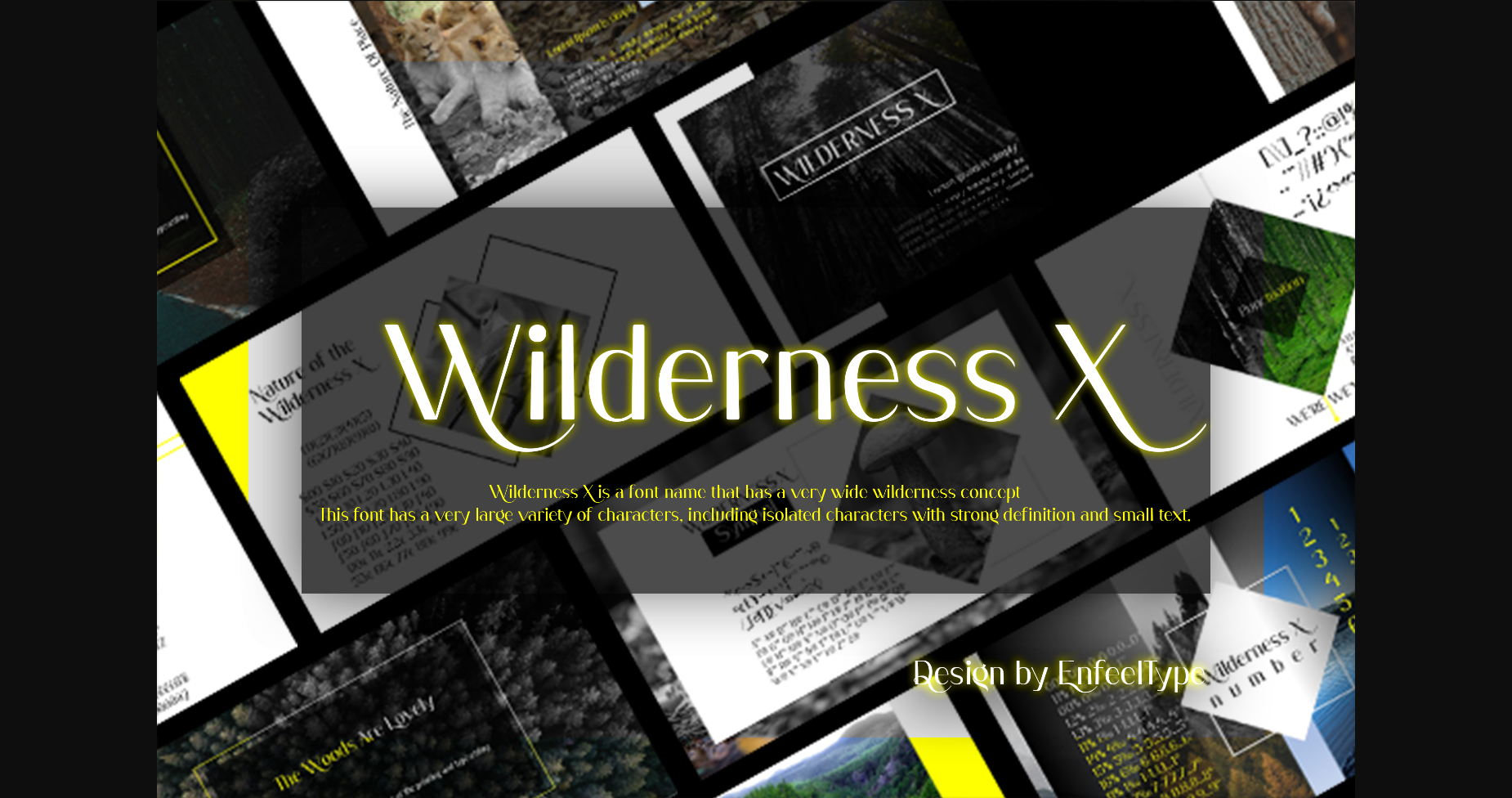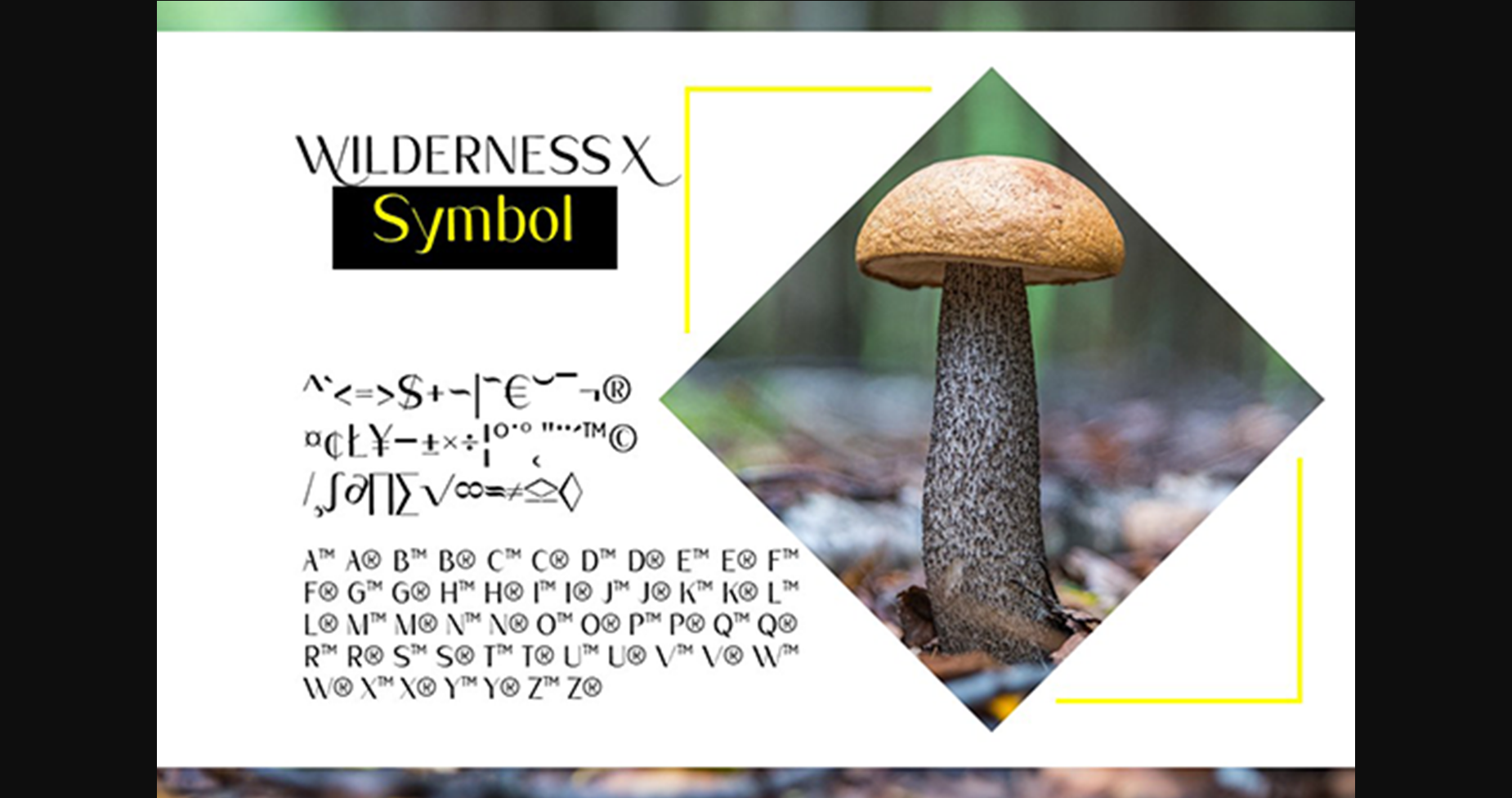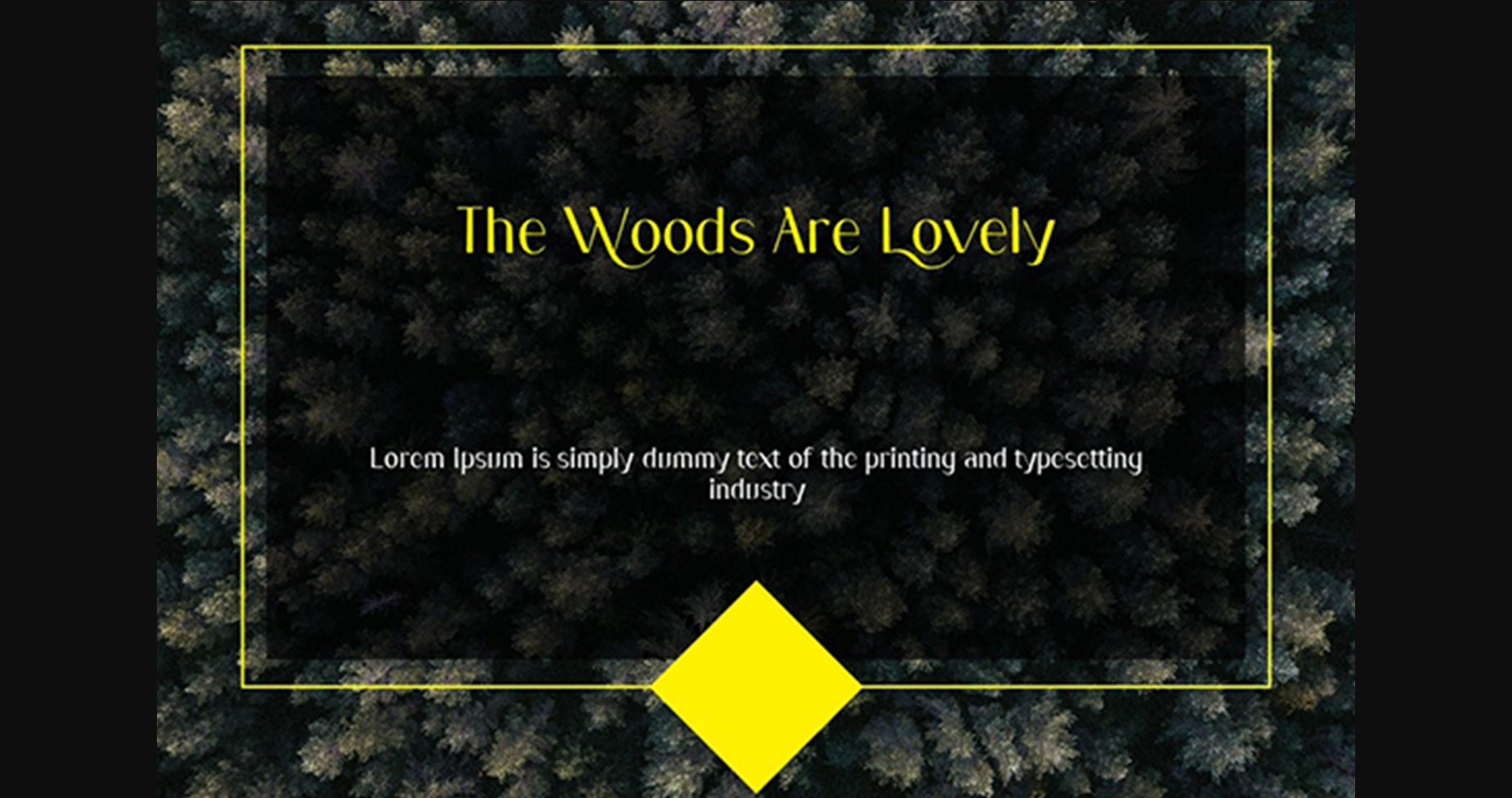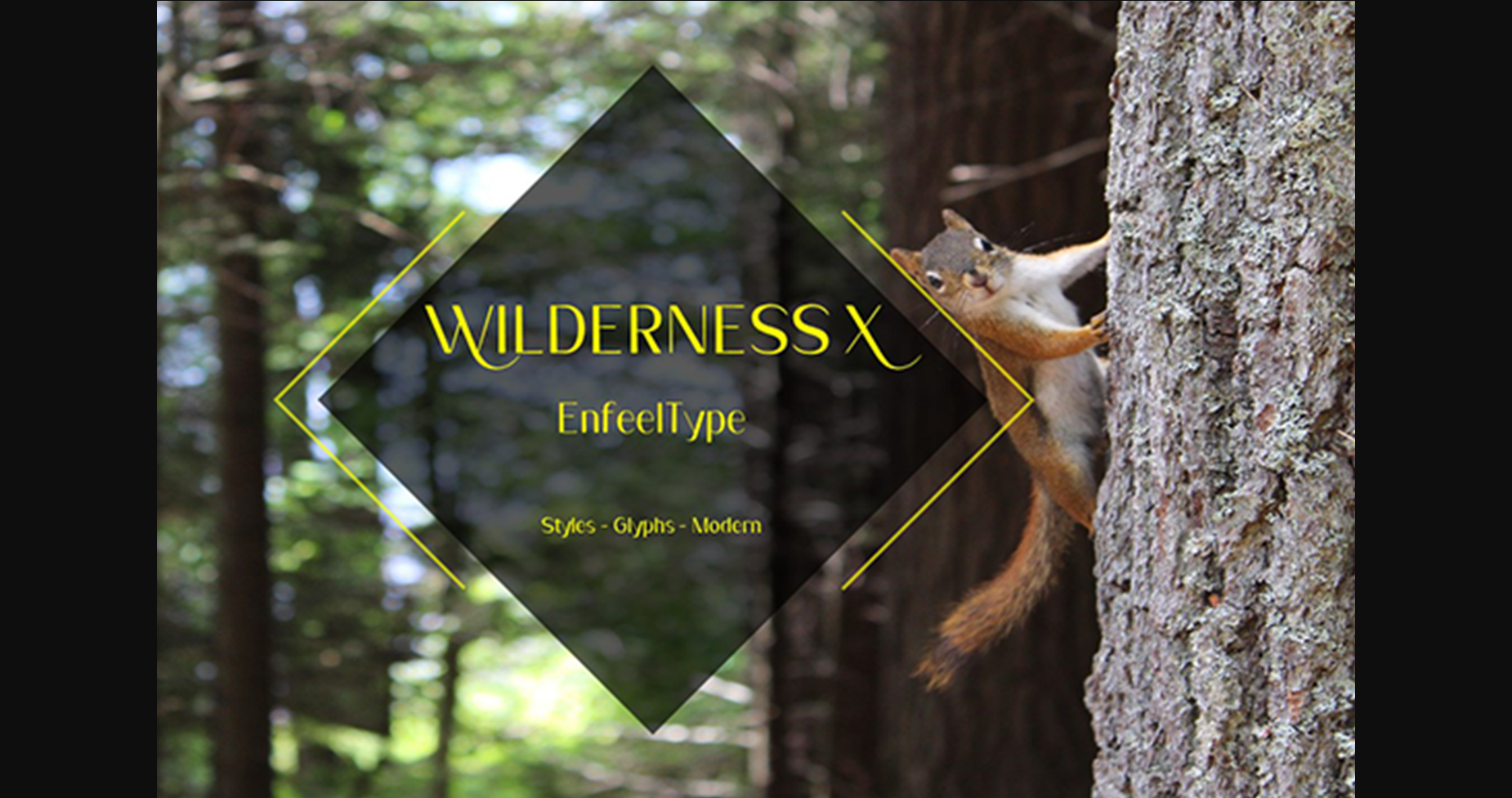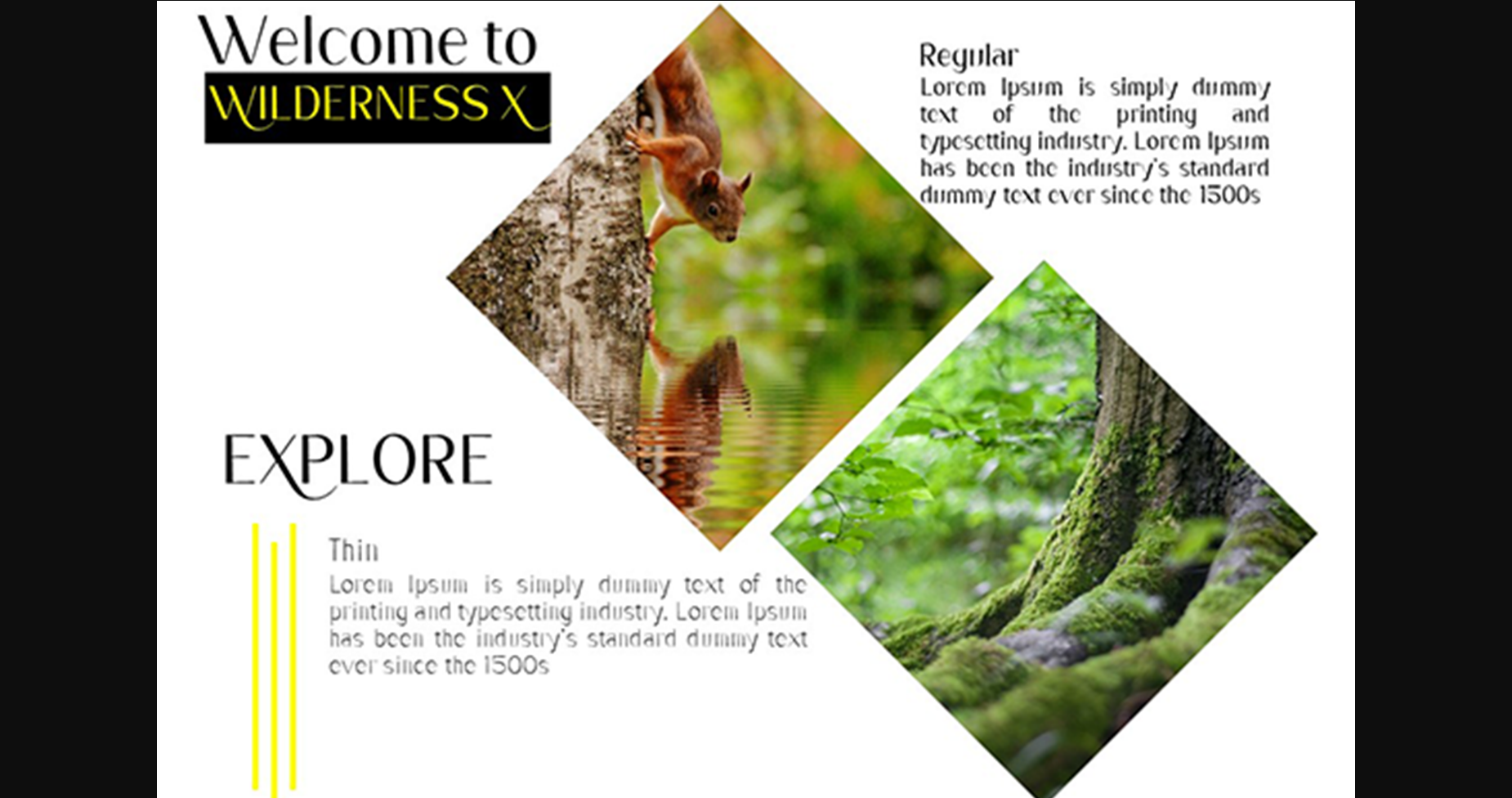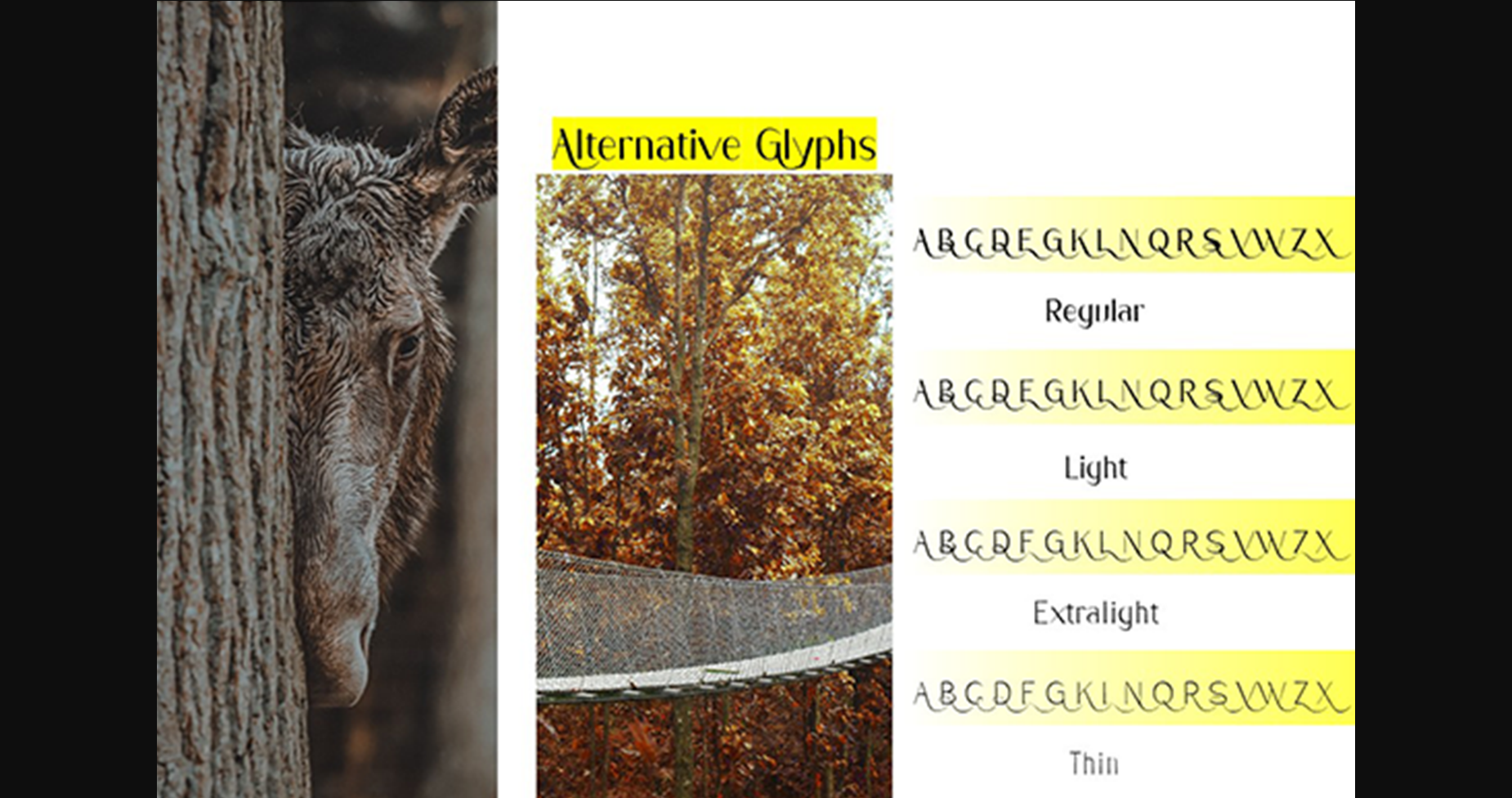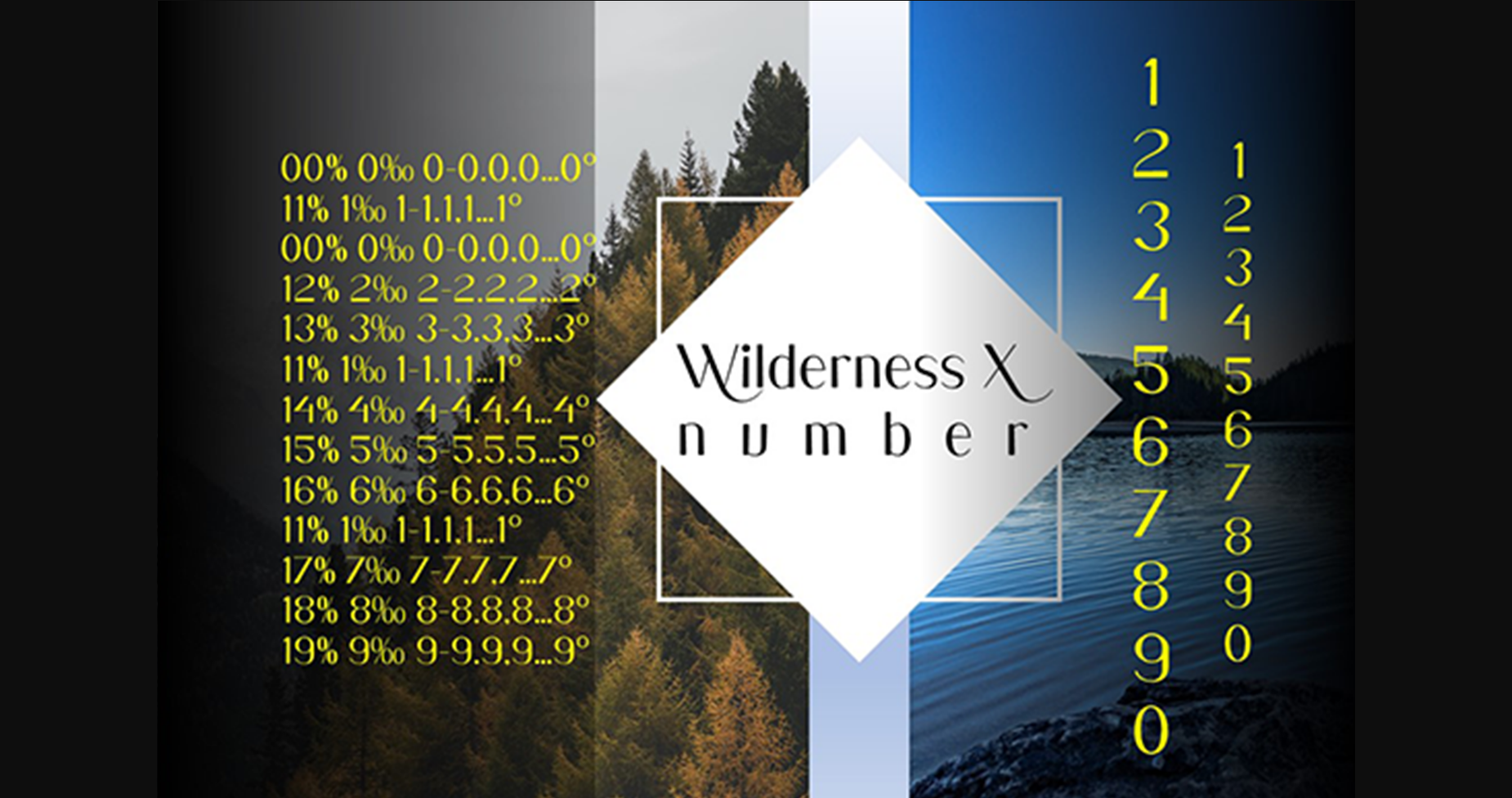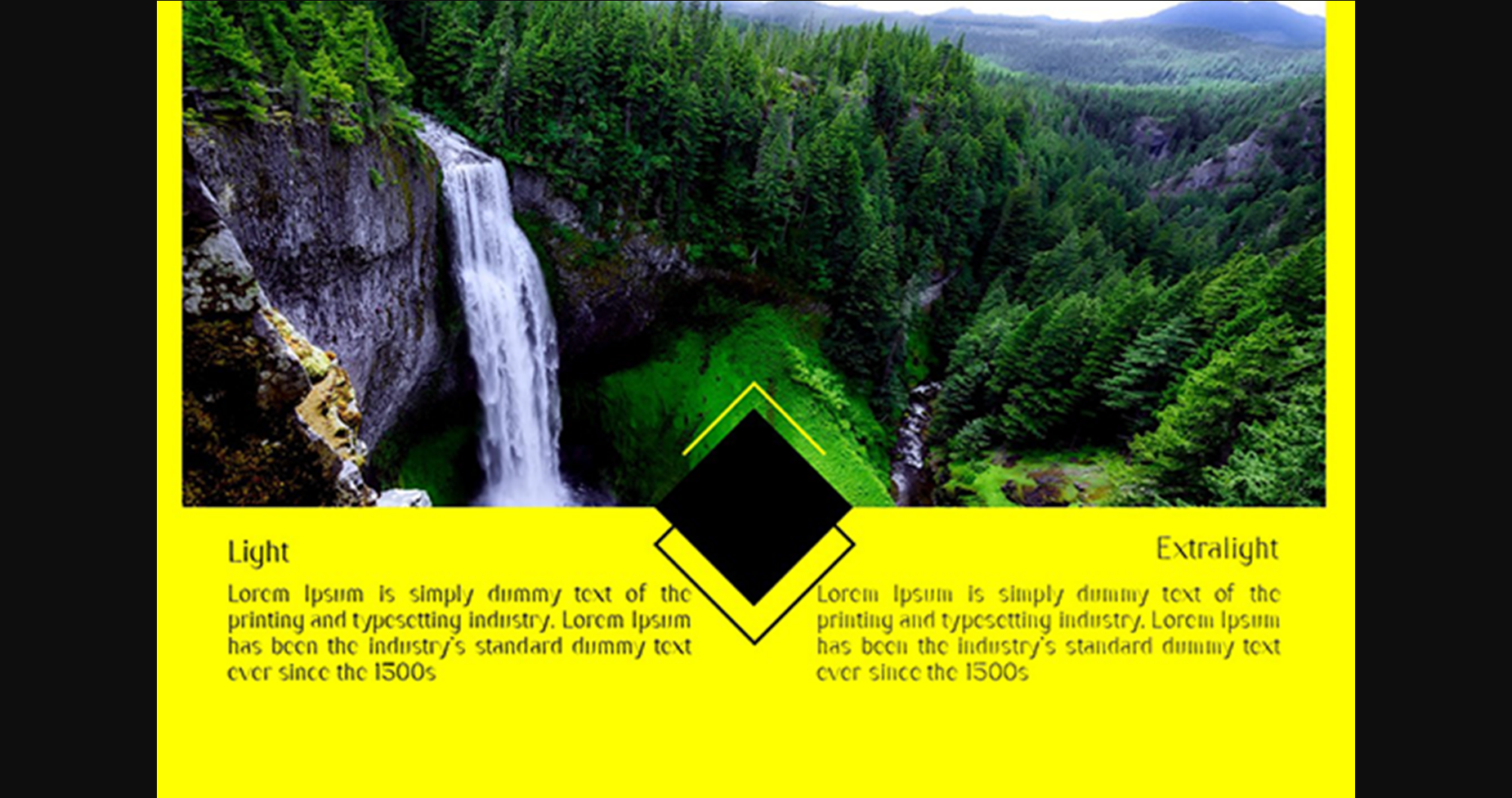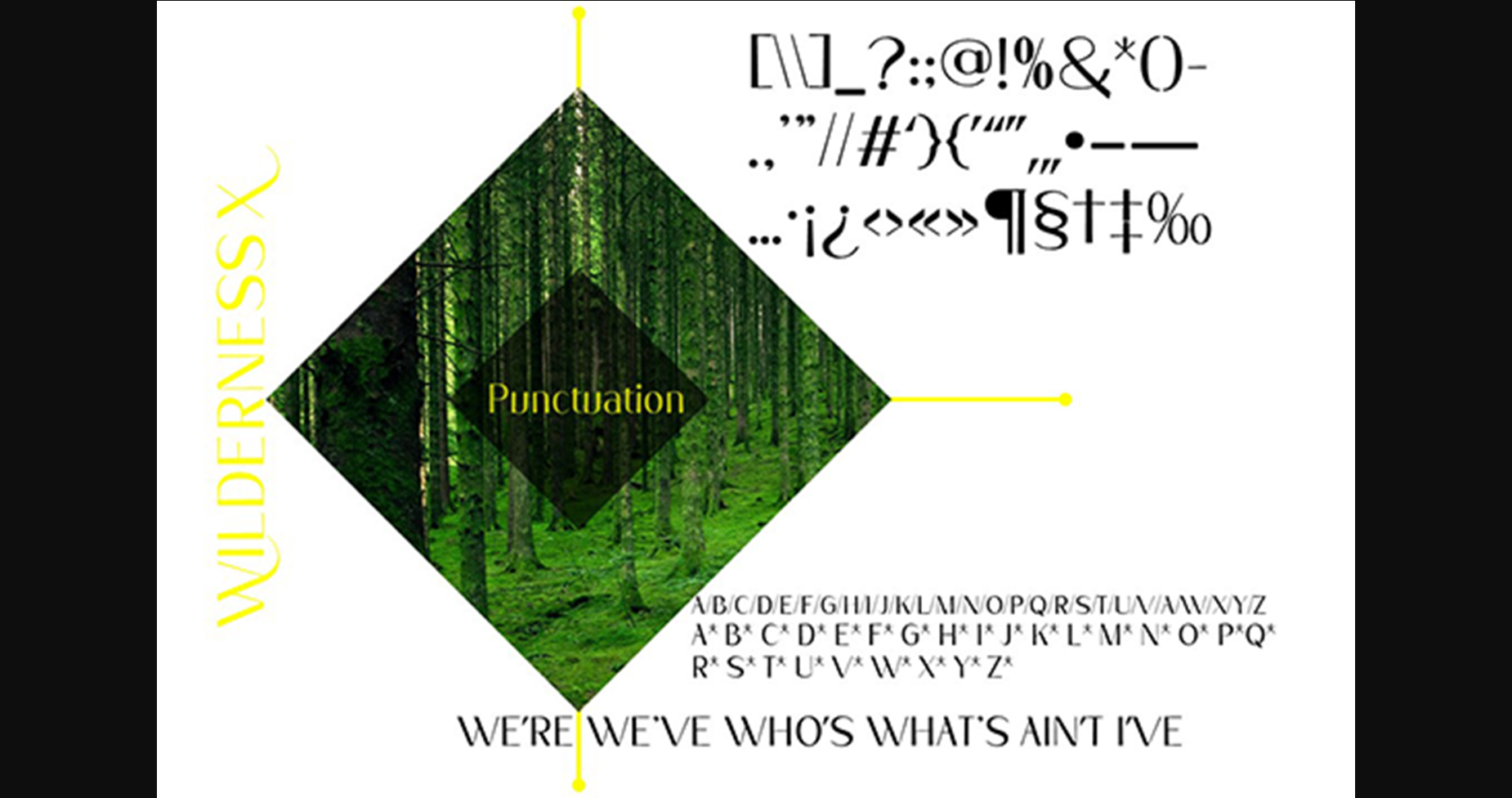
Wilderness X Font
About Wilderness X Font
Wilderness X is a font name that has a very wide wilderness concept. This font has a very large variety of characters, including isolated characters with strong definitions and small text. It is also a font that can be used as a random display font. There are also many other options, such as different stroke thicknesses and sizes, changing the glyphs, and so on.
The wilder the wilderness, the more rewarding the journey…I love the idea of exploring and staying on the edge, getting dirty, and making my path challenging. Wilderness X is not a bland font but has a bit of badness in it which makes it more interesting and attractive.